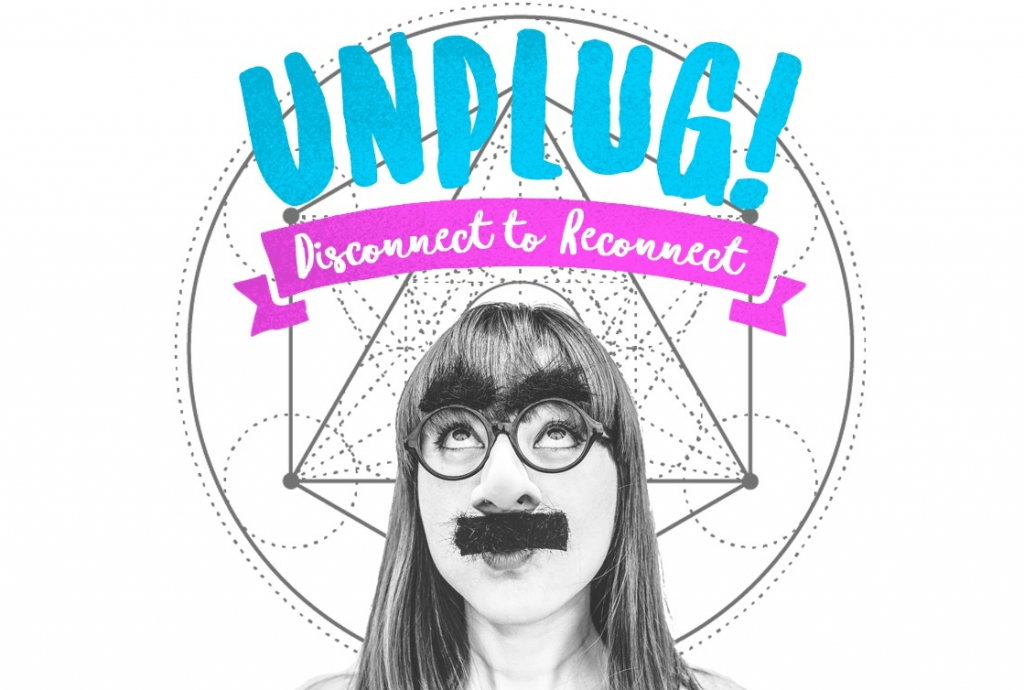
The purpose is to convey the message in a straightforward manner. Consider Sunrise International Font a typeface that looks like highway gothic for the worldwide awakening. Built-in two different font style to charm the inattentive but without exaggerations on the structures.
Sunrise International with bold brushstrokes and proper heights. The alternates are found on its uppercase form for your convenience. This Sans Serif is a quiet hustler.